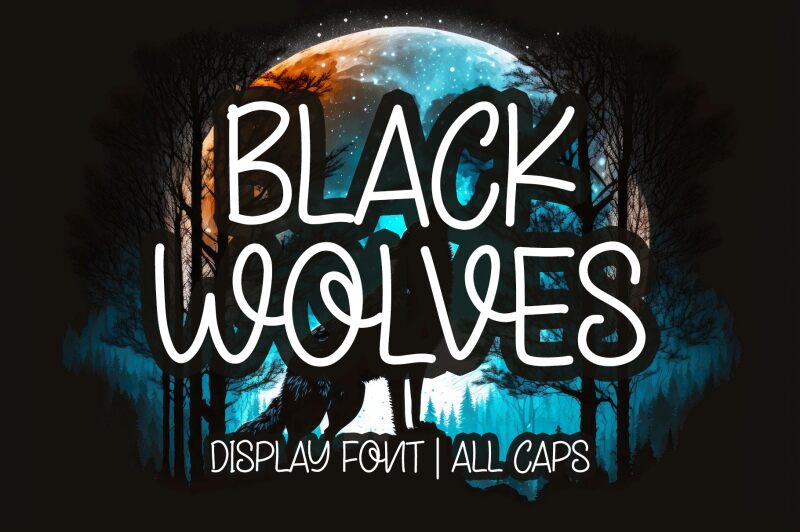
Black Wolves font by Letterafa Studio is a free handwritten font with a modern feel and a casual aesthetic. The hand-drawn appearance, light weight, and striking flow of the letters give it an energetic vibe perfect for all creative ventures.
Use Black Wolves font in posters and banners, invitation cards, branding designs and packaging projects, books covers, logo designs, social media posts. Other applicable uses include magazines and absolute beginners who love this fonts freelance appearance fit for all ages.